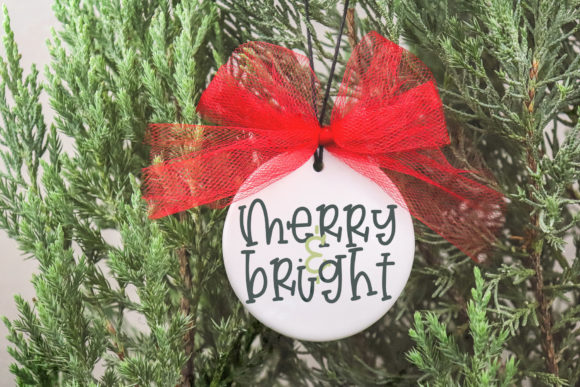
Christmas Stocking Font
Christmas Stocking is a cool and quirky display font, featuring a lovely style. No matter the topic, this font will be an incredibly asset to your fonts’ library, as it has the potential to elevate any creation.